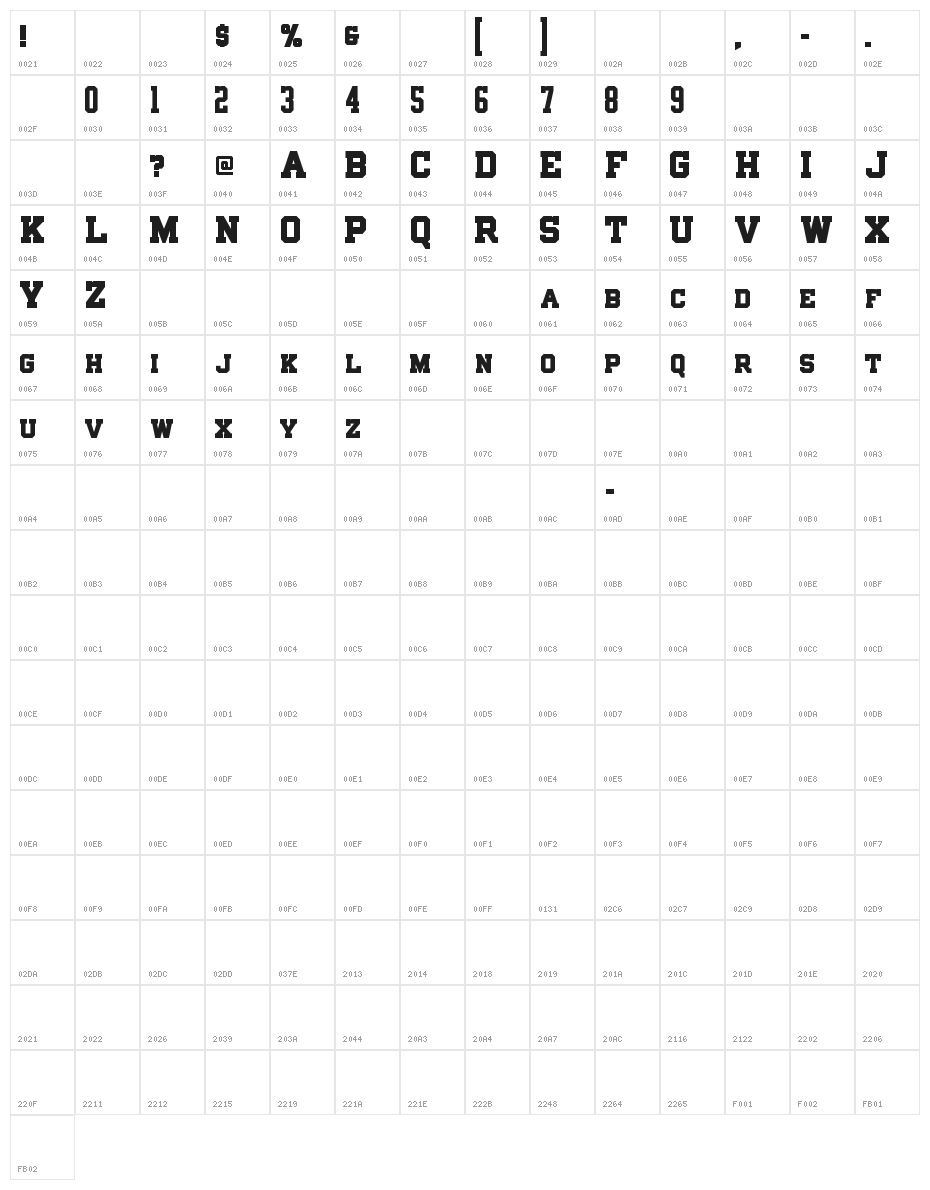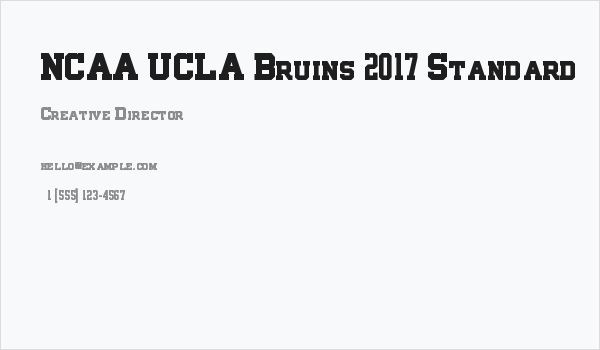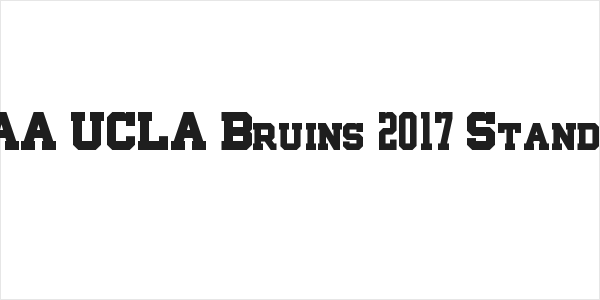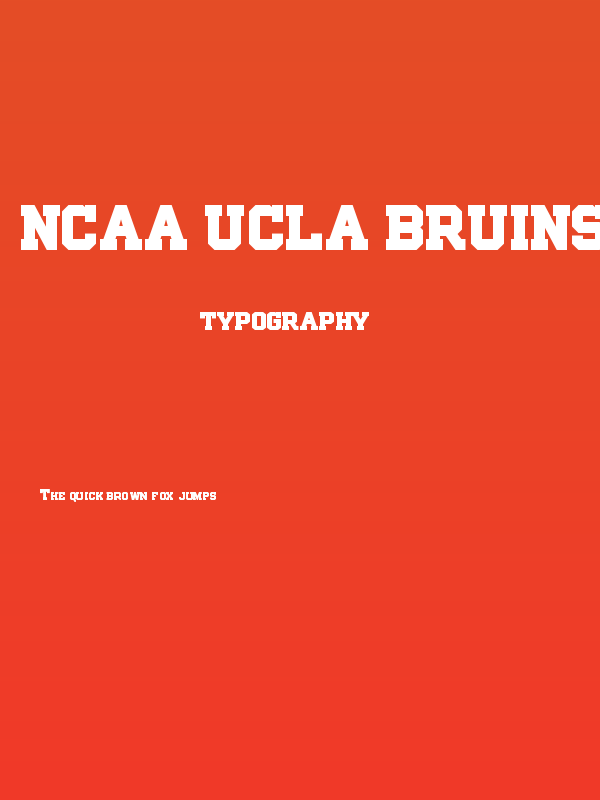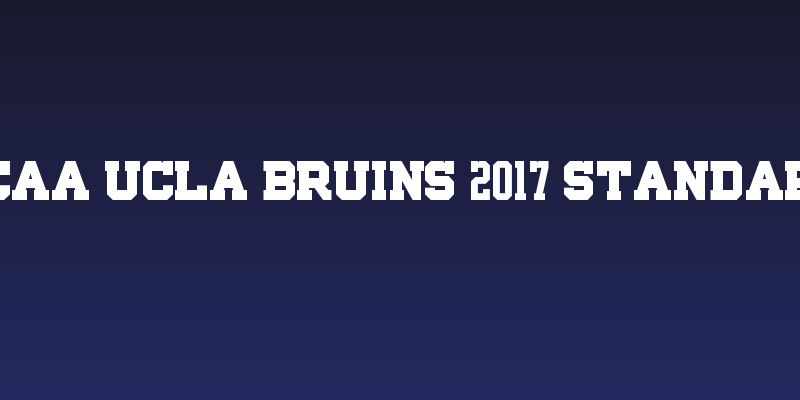
NCAA UCLA Bruins 2017 Standard Font
NCAA UCLA Bruins 2017 Standard Description
This font features a bold, blocky design with strong geometric shapes and a robust presence. The uppercase letters are uniform in height, with sharp edges and a slightly condensed appearance, giving it a powerful and authoritative look. The numerals are similarly bold, maintaining the strong geometric style, which ensures clarity and impact. The special characters are designed to match the overall boldness, ensuring consistency across all glyphs. This font is ideal for making a statement, with its high visibility and strong visual impact.